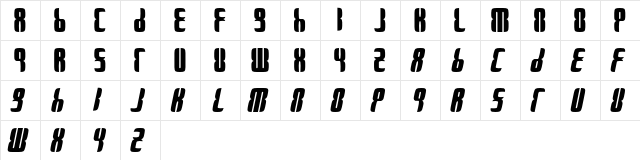
Kewken Regular
Design Context for Kewken Typeface
Kewken is a composed and adaptable typeface that performs quietly and consistently across a wide range of design contexts.